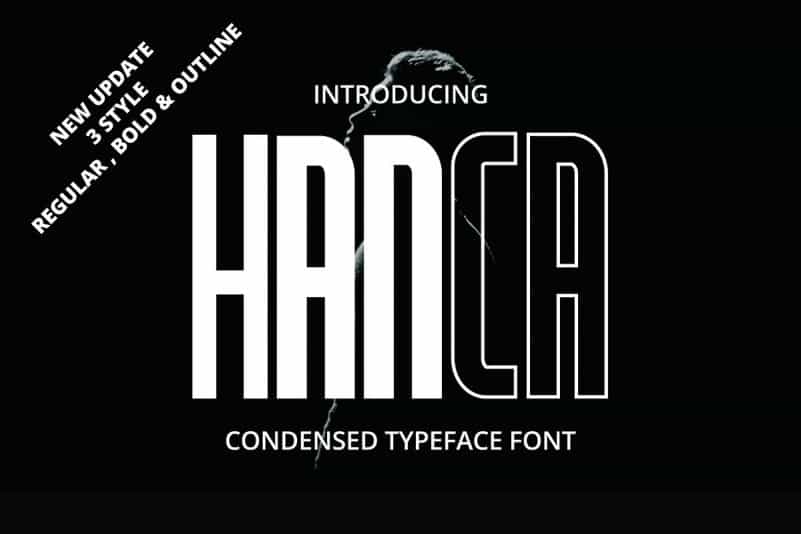
Hanca Display Font
Thank you for checking out Hanca Font! is a powerful and elegant display condensed font, bold and fat font for important titles or names, constructed to maximize use of horizontal space! It is design and shared by VZ Type.
Hanca Display is the perfect fit. It’s a memorable, strong and elegant typeface. APPLICATIONS This collection is perfect for headlines, quotes, magazine covers, editorial design, print posters, signage, window shop design, and much more.